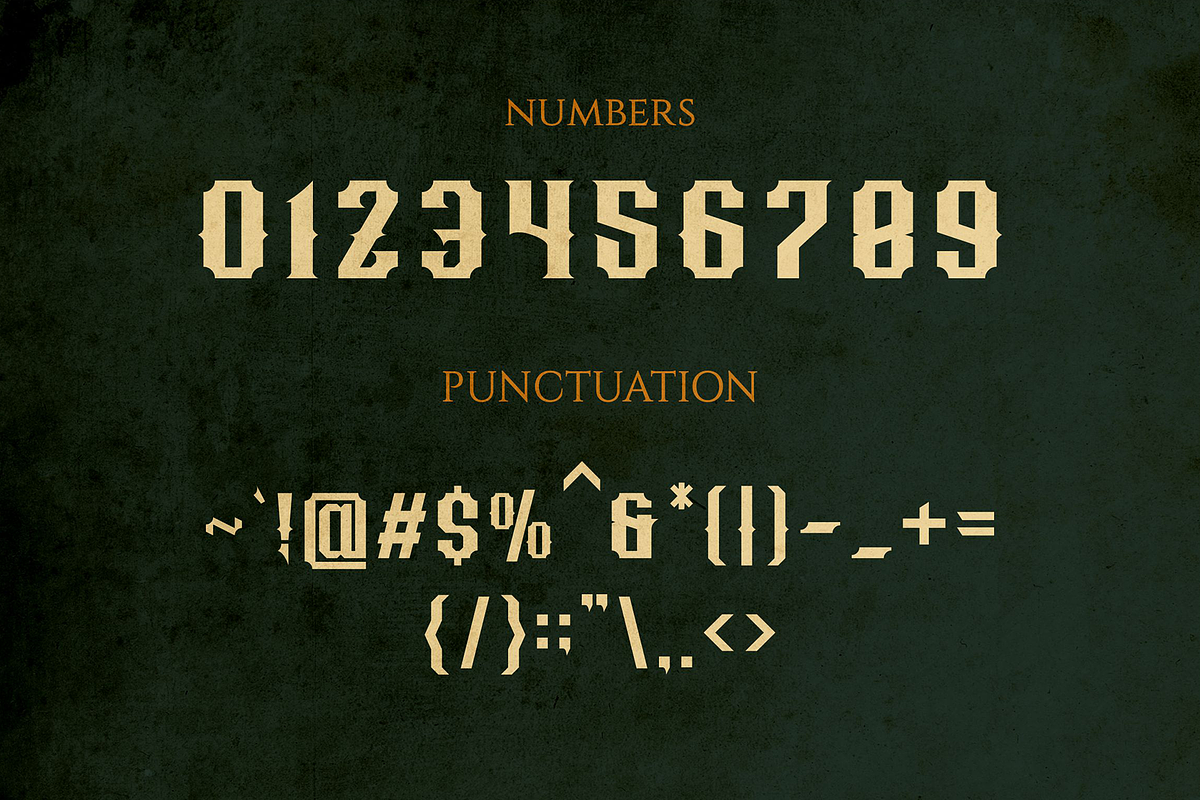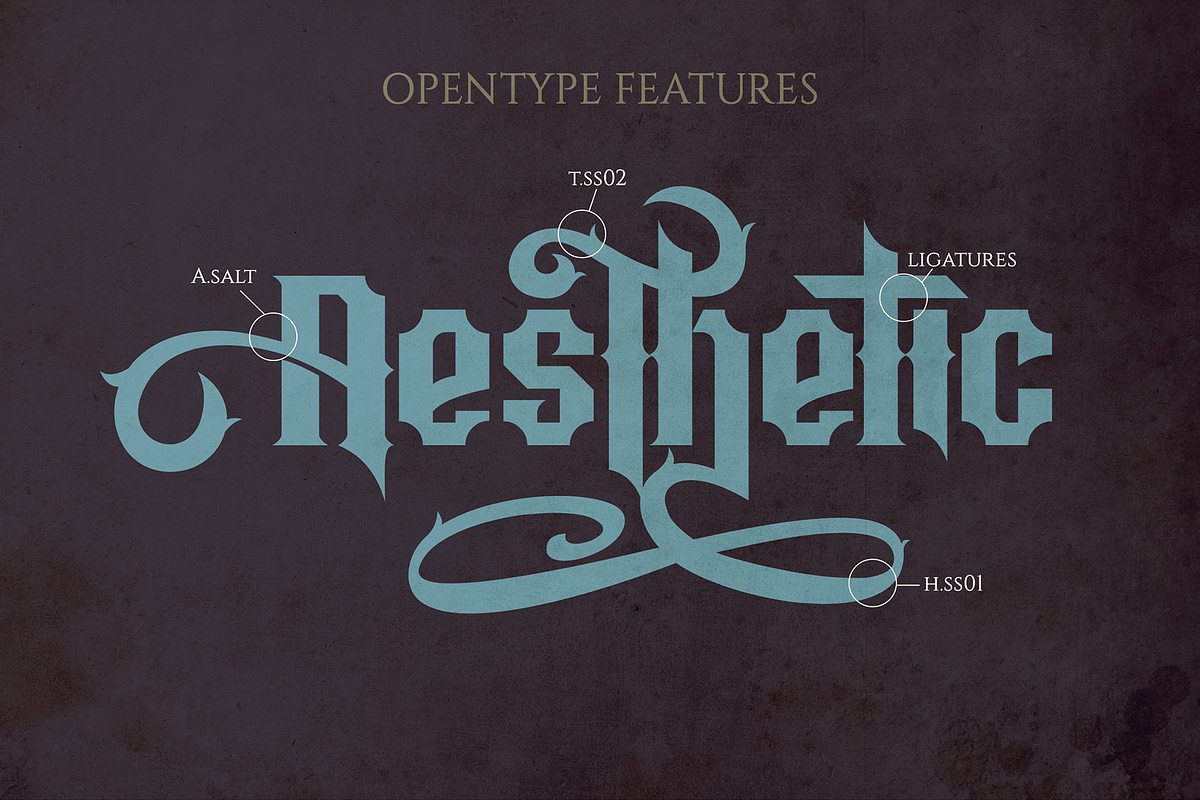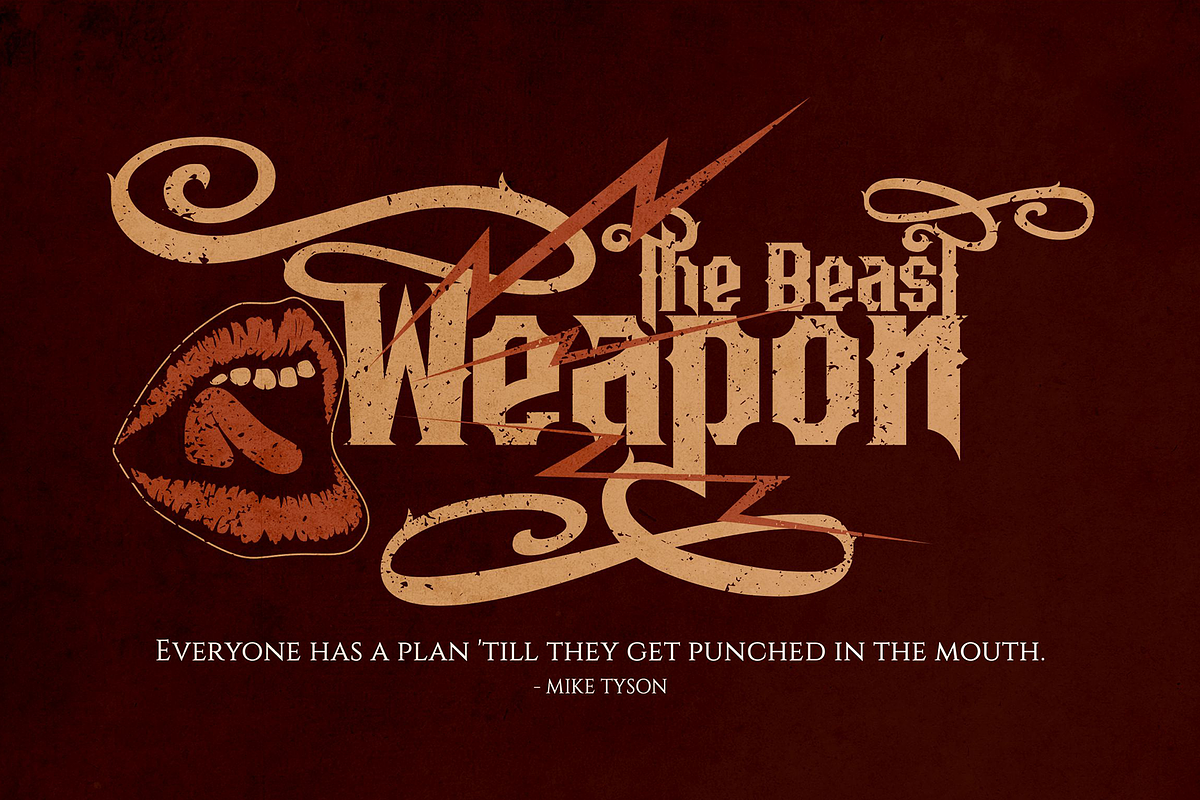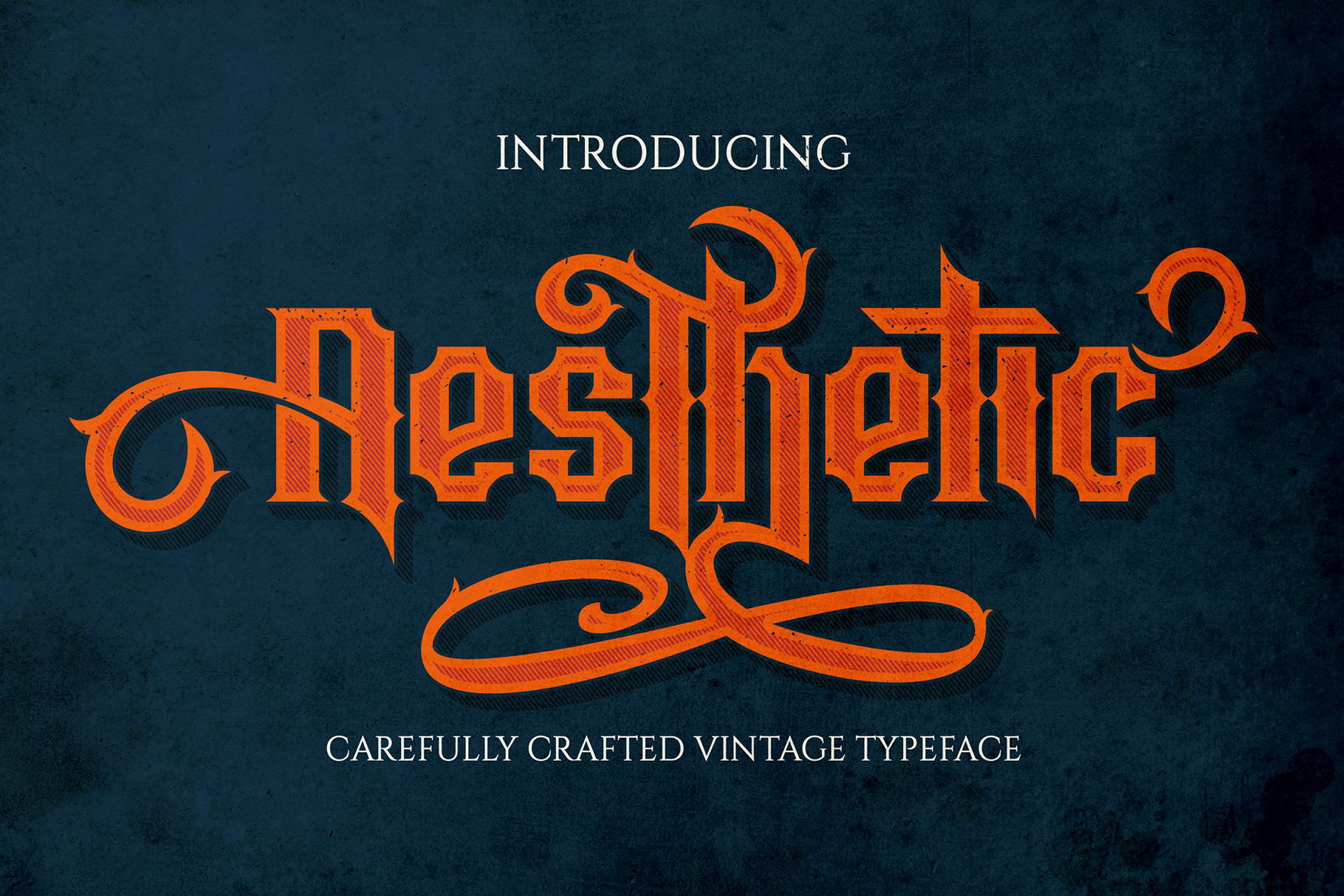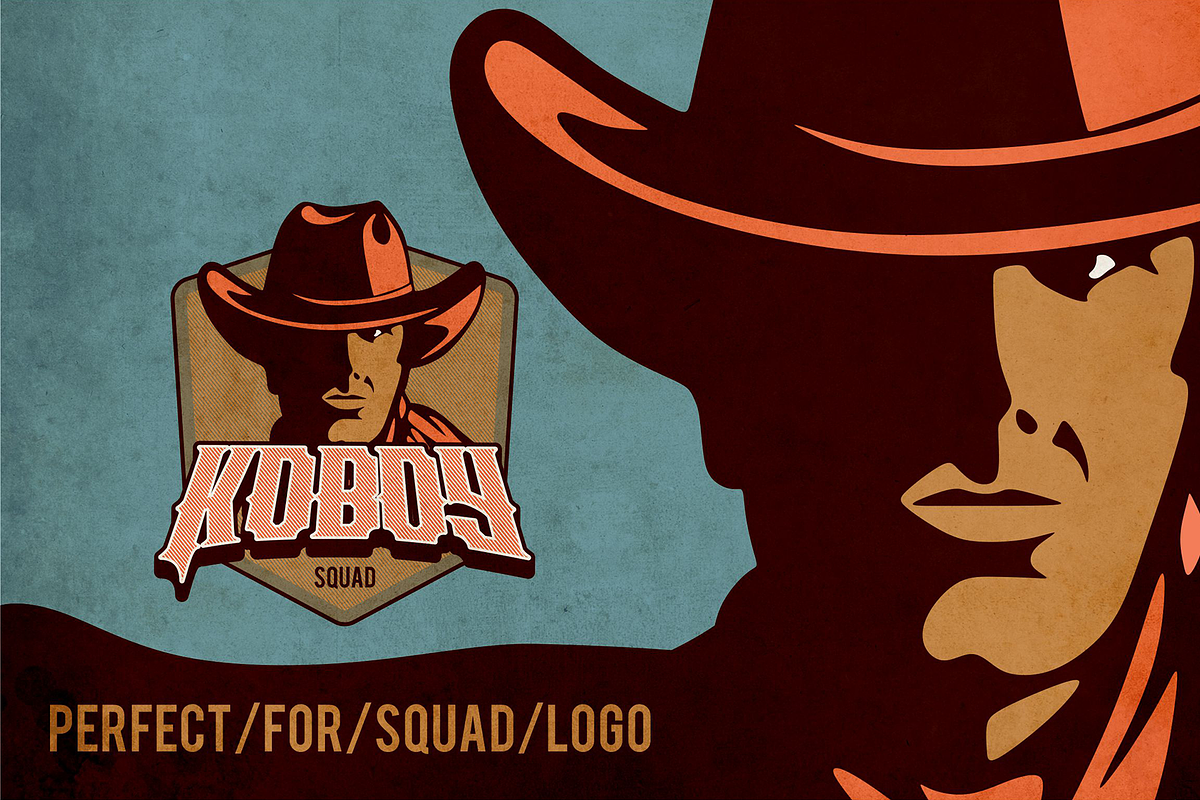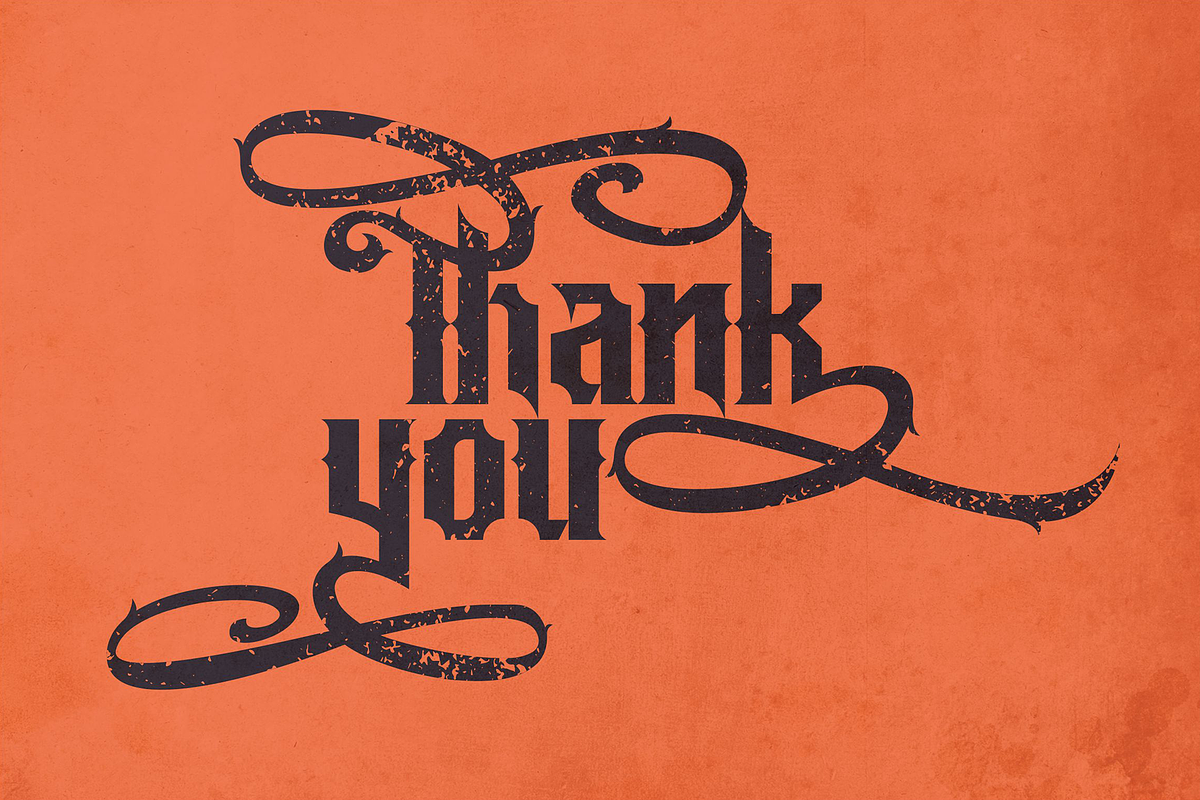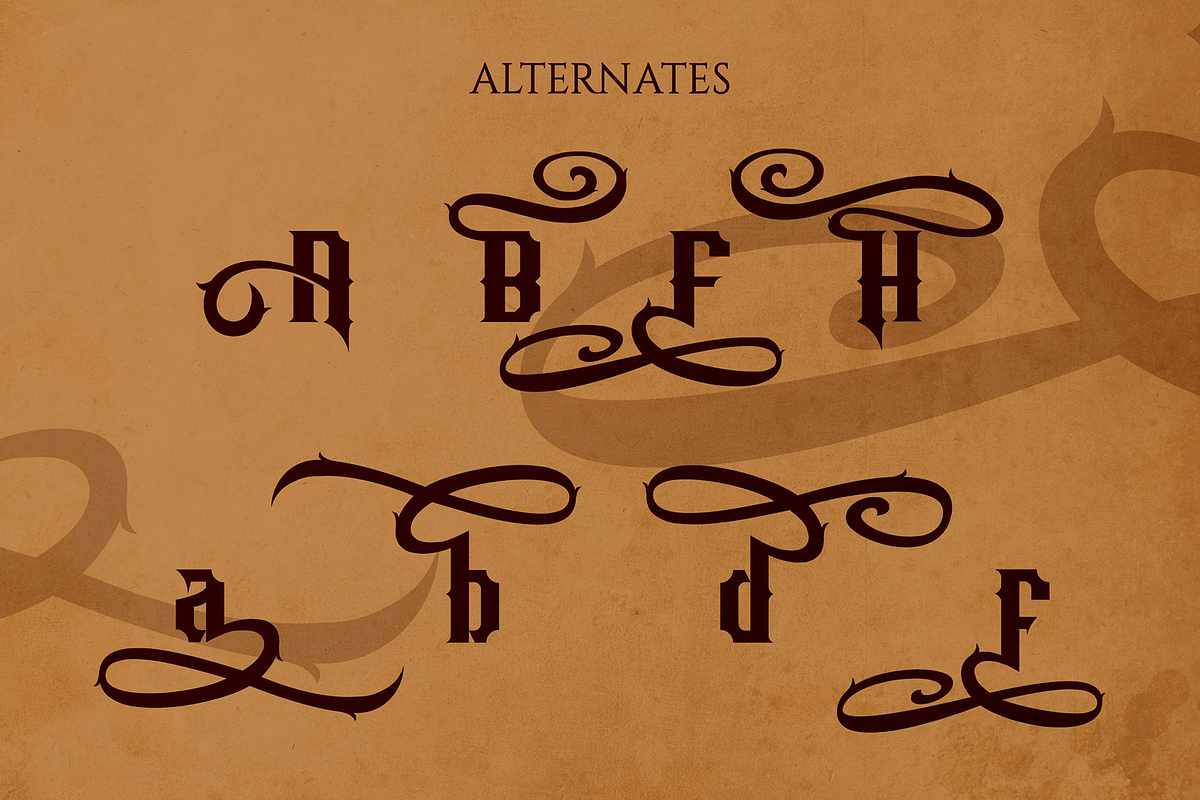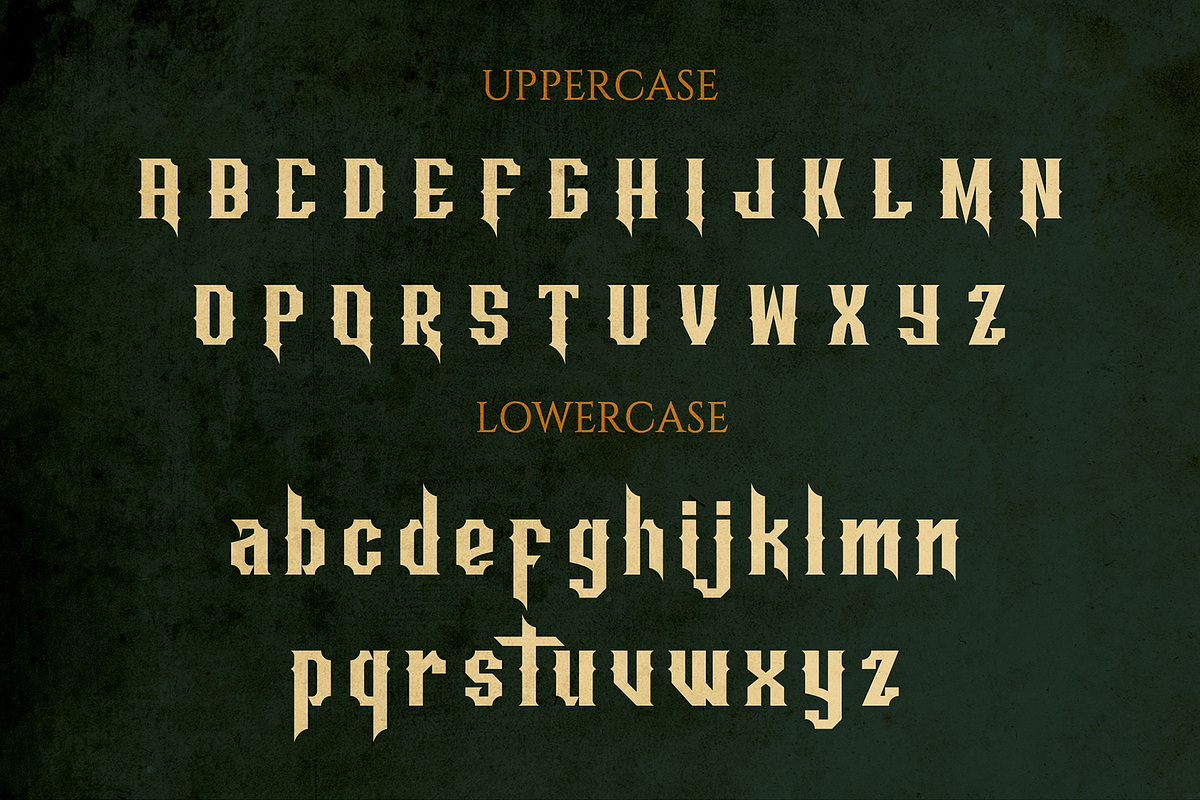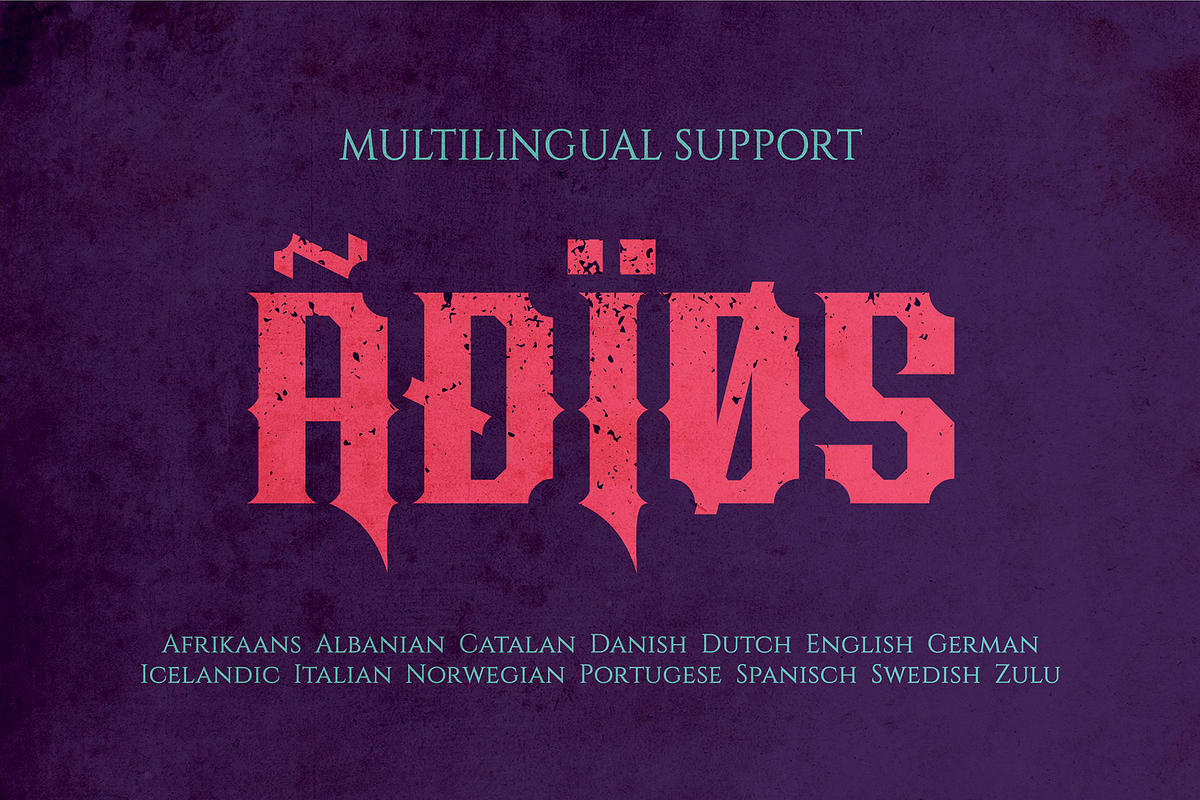
Aesthetic - Vintage Font
Aesthetic Typeface is handmade vintage lettering, which is combining modern and classic typography with some awesome features.
Aesthetic Features
OpenType features
- ss01
- ss02
- ss03
- swosh
There are more than 310 glyphs in the font including Stylistic Alternates, Ligatures, Stylistic sets etc. OpenType features with Stylistic Alternates, Contextual Alternate in some characters that allows to make awesome vintage look. this is suit for : labeling, logo, classic shop, coffee shop, movie title, etc